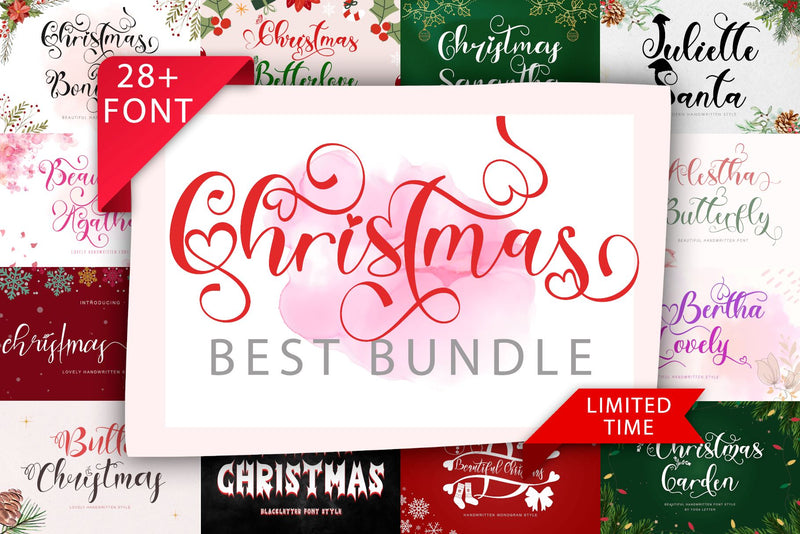
Christmas Best Bundle
This set includes 28+ beautiful and popular fonts !!!
1. Christmas Bonitha
2. Demon Christmas
3. Christmas Sanantha
4. Royal Christmas Monogram
5. Juliette Santa
6. Quick Christmas
7. Tropical Christmas
8. Christmas Street
9. Austin Christmas
10. Christmas Melisya
11. Beautiful Agatha
12. Christmas Rose
13. Butter Christmas
14. Christmas Sabila
15. Alestha Butterfly
16. Bertha Lovely
17. Christmas Garden
18. Christmas Betterlove
19. Beautiful Christmas Monogram
20. Christmas Gift Monogram
21. Christmas Holiday Monogram
22. Christmas Peachy
23. Christmas Donuts
24. Winter Christmas Monogram
25. Christmas Laurent
26. Christmas display
27. Christmas philosophy
28. Christmas Shakila
This bundle is perfect for a variety of projects such as christmas, weddings, designs, branding, logos, invitations, stationery, social media posts, advertisements, product packaging, product designs, labels, photography, valentine, easter, mother day, father day, watermarks, special events or whatever.